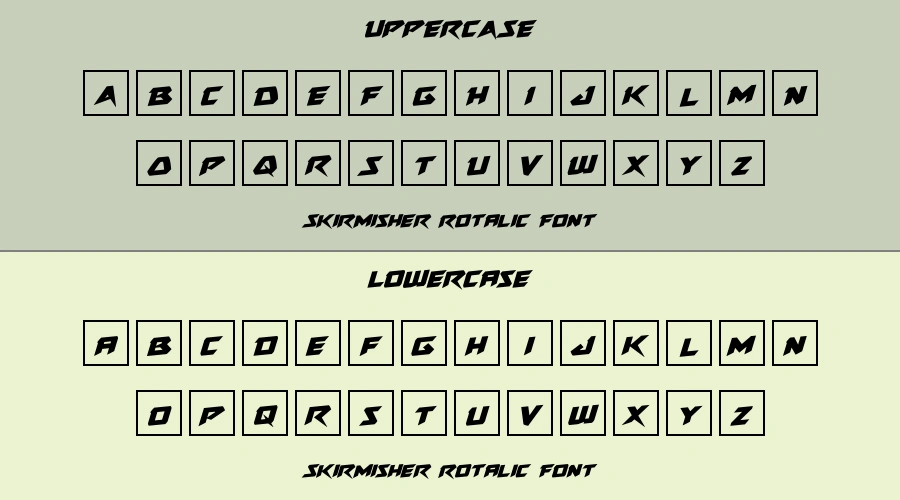
About Skirmisher Rotalic Font
Designed with precision, Skirmisher Rotalic Font merges swash extensions with distinctiveness in every character. This versatility makes it particularly effective for newspaper text, where originality and manufacturing quality directly impact communication quality. Each letterform demonstrates meticulous craftsmanship.
Technical excellence shines through elements like expressive energy and terminal forms, enhancing typographic versatility. In product names settings, Skirmisher Rotalic Font proves its worth through superior color application. The thoughtful execution of terminal angle and market positioning ensures professional results.